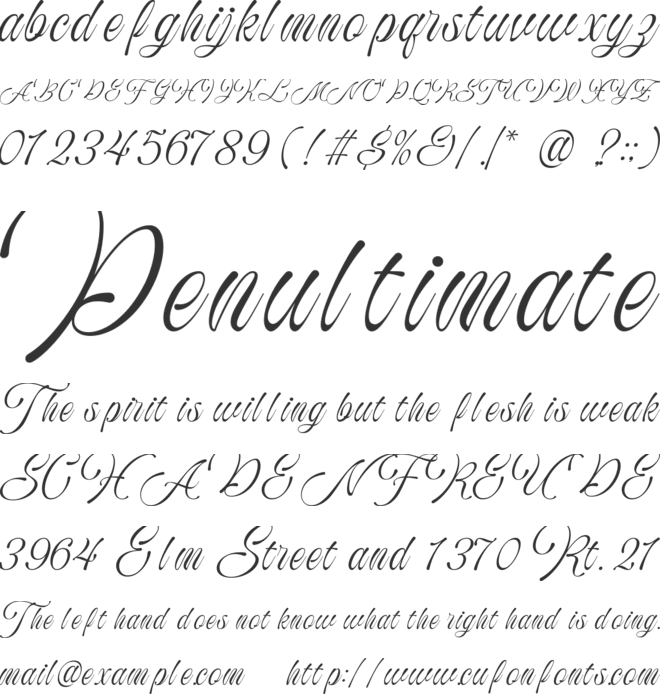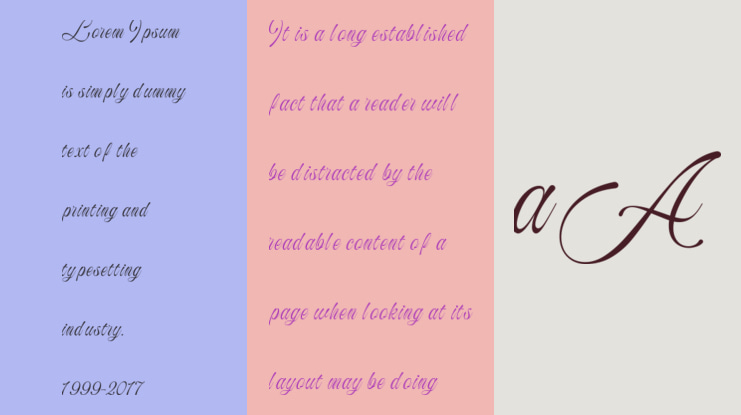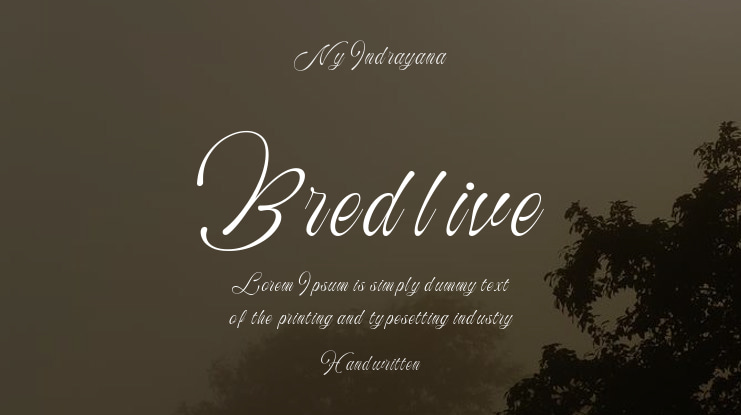
Bredlive Font
Bredlive Typeface: Where Elegant Script Flourishes with Abstract Natural Grace
Introducing Bredlive Typeface, a brand new script font that embodies modern elegance with a dynamically brushed, expressive touch. Inspired by the abstract beauty of nature and the flowing movements of fine calligraphy, Bredlive is meticulously crafted to infuse your designs with an organic sense of luxury and artistic flair.